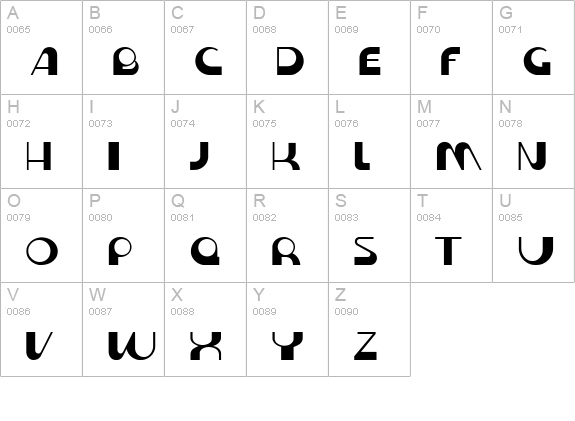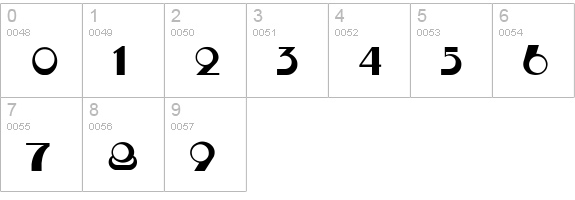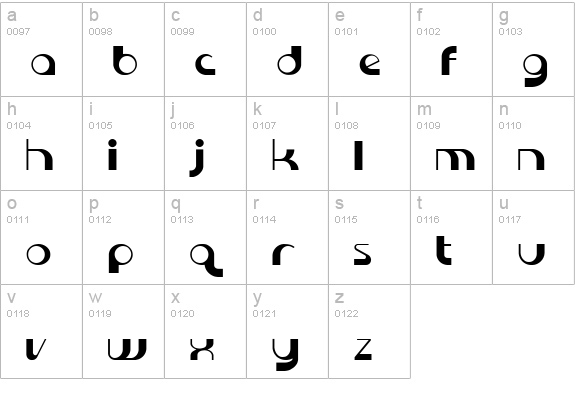
Krome normal is the standard, neutral variant in the Krome typeface family \xE2\x80\x94 well suited to general body text, paragraphs, and standard typographic work.
Krome normal font is a modern and stylish typeface that exudes elegance and sophistication. With its clean lines and sleek curves, this font is perfect for a wide range of design projects, from branding to editorial design. The versatility of Krome normal font makes it suitable for both headlines and body text, ensuring that your message is delivered with clarity and impact. What sets Krome normal font apart is not only its aesthetic appeal but also its accessibility. This font is free to download at FontsMarket.com, making it a valuable addition to any designer's toolkit. Whether you're working on a personal project or a client's brief, Krome normal font offers a professional look that will elevate your designs to the next level. Download it today and see for yourself the difference that Krome normal font can make in your creative work.